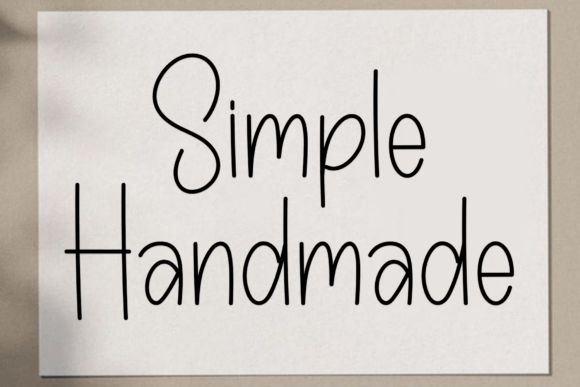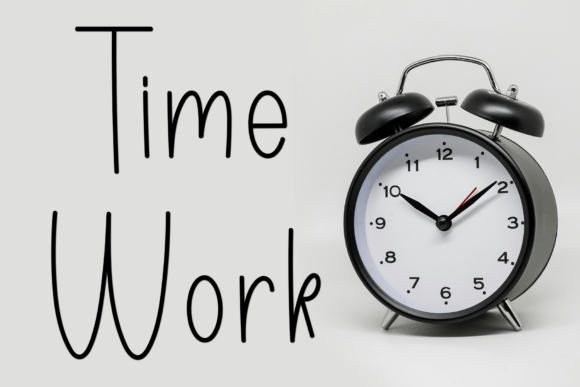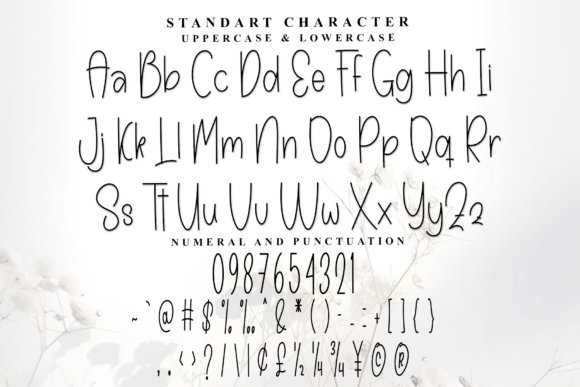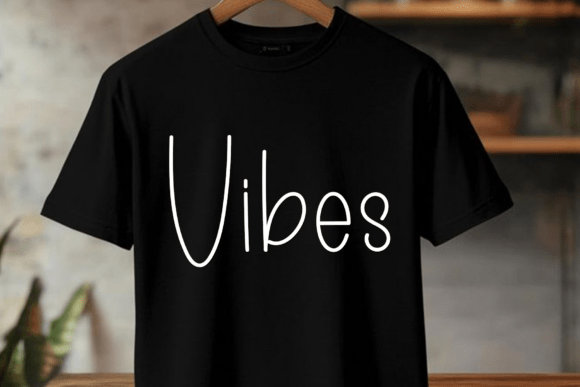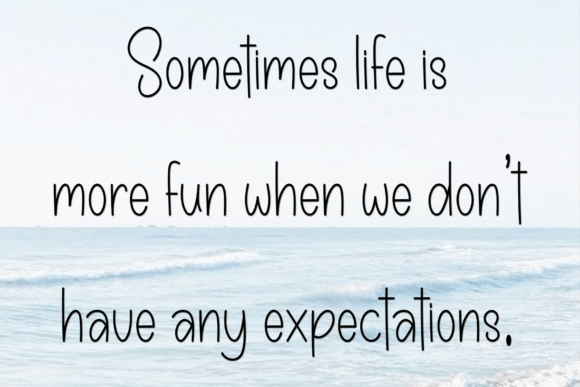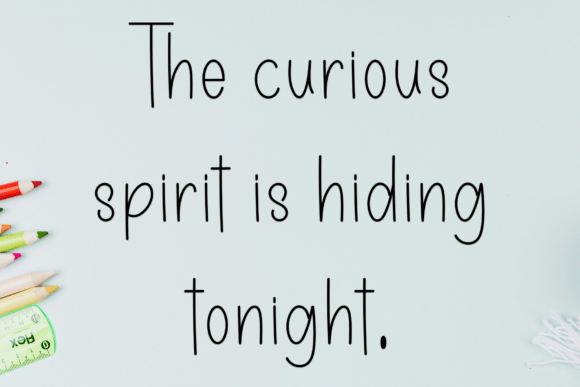
Introduction to Modern Handwriting Font
Modern Handwriting is a beautiful and eye-catching font designed with a soft, unique touch.
Its distinctive strokes give it a special character, making it meaningful and versatile for future use With various characters, itโs perfect for design projects, crafts, and other creative works.
Key Features of Modern Handwriting Font
Why Choose Modern Handwriting Font?